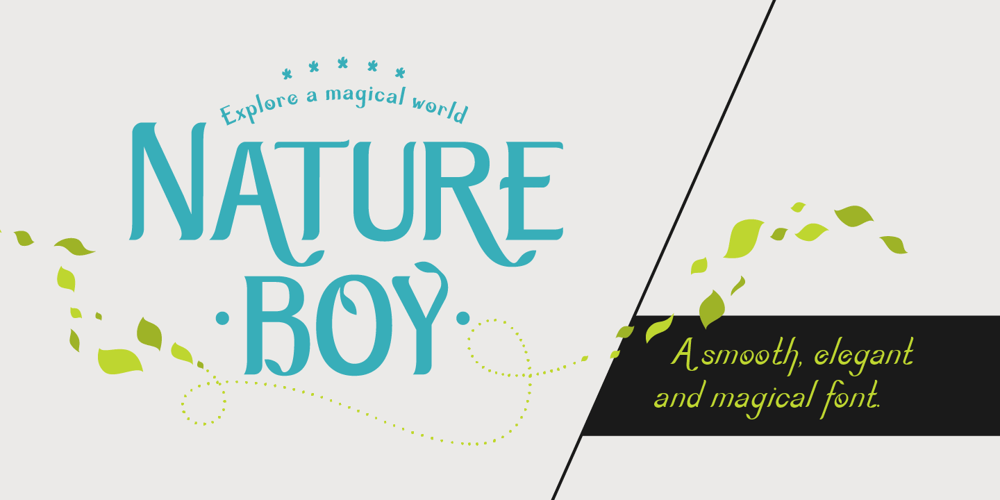
Nature Boy Font Family was designed by Emilia Adorno and published by Adorae Types. Nature Boy contains 3 styles and family package options. Nature Boy was born in a fantasy world of old, where you can find magic, elegance, dreams and fun all together… just like nature in its purest form with its leafy curves and shapes that make it peacefully enjoyable. Soft and simple yet fairly ornamental, attributes that create an enchanting atmosphere but keep the texts legible at the same time when combined. Nature Boy can bring life and magic to every design, from editorial to posters, brands and packagings. Just picture this font on any product intended to move your soul and take you on a journey into a different and most beautiful place and time and let the adventure begin.This font family is made up of optically corrected regular, italic and bold types. All of them contain functional ligatures with alternative glyphs for texts and words to be dynamical and fluently graphed.